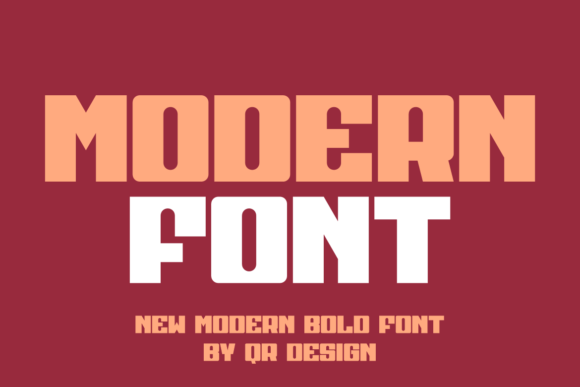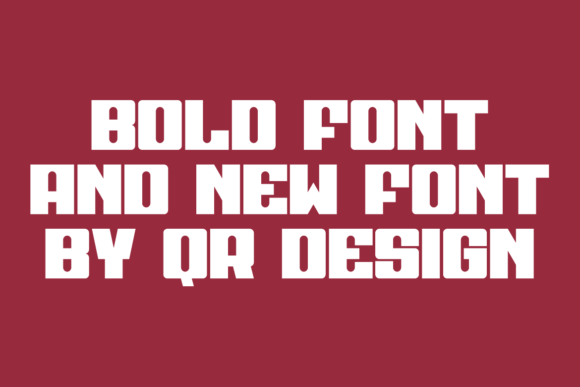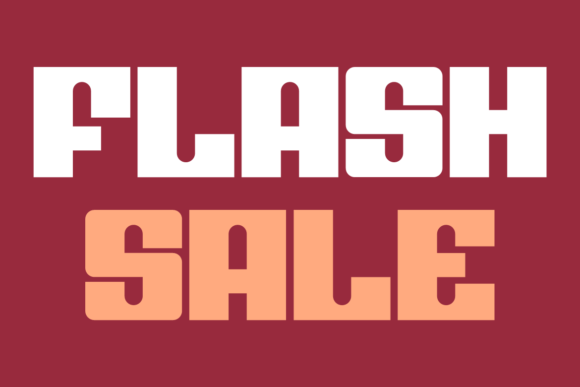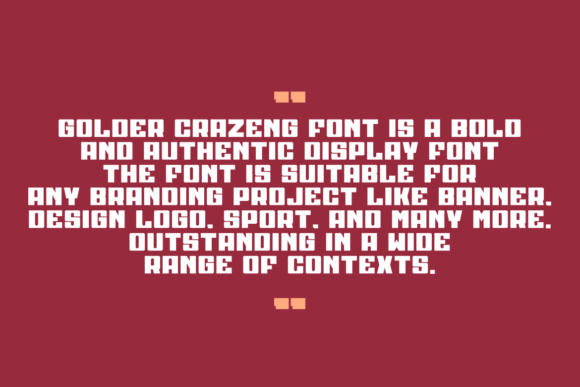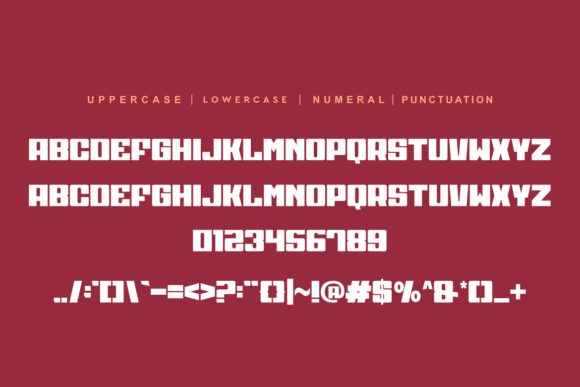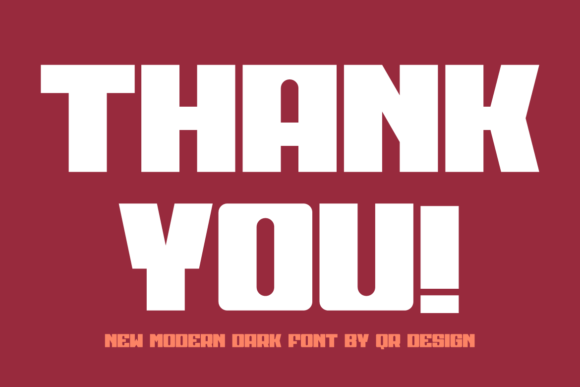
Golder Crazeng Font: Elevate Your Designs with a Modern and Strong Sans Display Font
Are you looking for a font that can add a touch of modernity and strength to your designs? Look no further than Golder Crazeng, a sans display font that is taking the design world by storm. With its clean lines, bold appearance, and versatility, Golder Crazeng is the perfect choice for designers and crafters who want to create stunning visual content.
What is Golder Crazeng Font?
Golder Crazeng is a modern and strong sans display font that is designed to make a statement. Its sleek and clean design makes it perfect for use in a variety of applications, from posters and social media posts to stickers, apparel, and packaging. With Golder Crazeng, you can add a touch of sophistication and elegance to your designs, while also conveying a sense of strength and confidence.
Key Features of Golder Crazeng Font
- Modern and Strong Design: Golder Crazeng has a bold and modern design that is sure to grab attention.
- Versatile: This font can be used in a variety of applications, from digital to print.
- Clean Lines: The clean lines of Golder Crazeng make it easy to read and understand.
- Highly Legible: This font is highly legible, even at small sizes.
How to Use Golder Crazeng Font
Golder Crazeng is a versatile font that can be used in a variety of ways. Here are some ideas to get you started:
- Posters: Use Golder Crazeng to create eye-catching posters that grab attention.
- Social Media Posts: Add a touch of modernity to your social media posts with Golder Crazeng.
- Stickers: Use Golder Crazeng to create stickers that are both fun and functional.
- Apparel: Add a touch of style to your apparel with Golder Crazeng.
- Packaging: Use Golder Crazeng to create packaging that stands out from the crowd.
Benefits of Using Golder Crazeng Font
There are many benefits to using Golder Crazeng in your designs. Here are just a few:
- Increased Visibility: Golder Crazeng is a bold and attention-grabbing font that is sure to increase visibility.
- Improved Readability: The clean lines and highly legible design of Golder Crazeng make it easy to read and understand.
- Enhanced Creativity: With Golder Crazeng, you can add a touch of modernity and sophistication to your designs.
- Cross-Platform Compatibility: Golder Crazeng is compatible with a variety of platforms, including digital and print.
Tips and Tricks for Using Golder Crazeng Font
Here are some tips and tricks for using Golder Crazeng in your designs:
- Use it Sparingly: Golder Crazeng is a bold font, so use it sparingly to avoid overwhelming your design.
- Experiment with Colors: Try out different colors to see what works best with Golder Crazeng.
- Pair it with Other Fonts: Golder Crazeng can be paired with other fonts to create a unique and interesting design.
Golder Crazeng is a modern and strong sans display font that is perfect for designers and crafters who want to create stunning visual content. With its clean lines, bold appearance, and versatility, Golder Crazeng is sure to elevate your designs to the next level. So why wait? Add Golder Crazeng to your font collection today and start creating amazing designs!